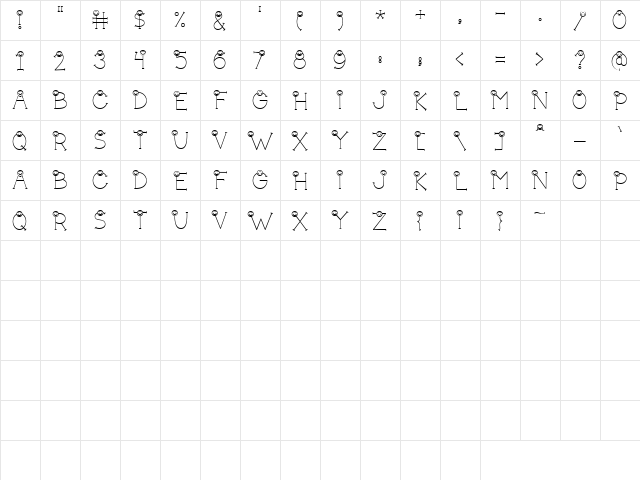
LD Grin Regular Font Preview
LD Grin Regular
LD Grin Regular Font Details
Design Context for LD Grin Typeface
LD Grin is a composed and adaptable typeface that performs quietly and consistently across a wide range of design contexts.